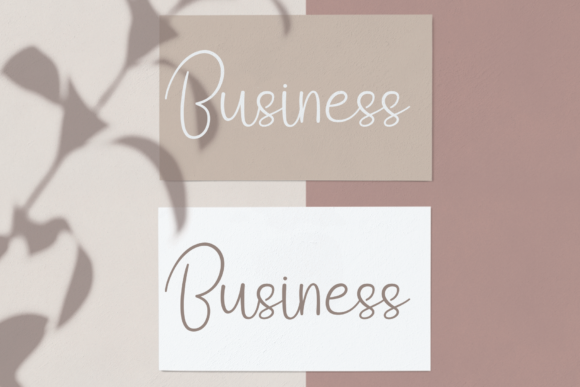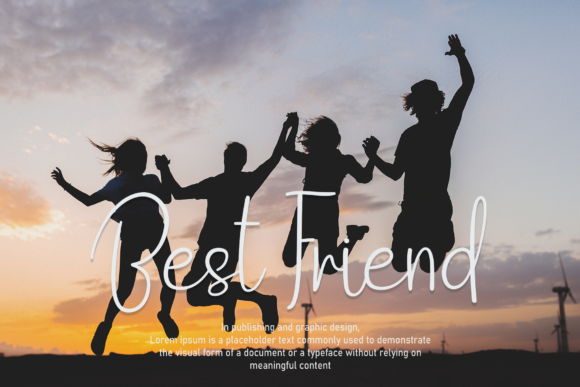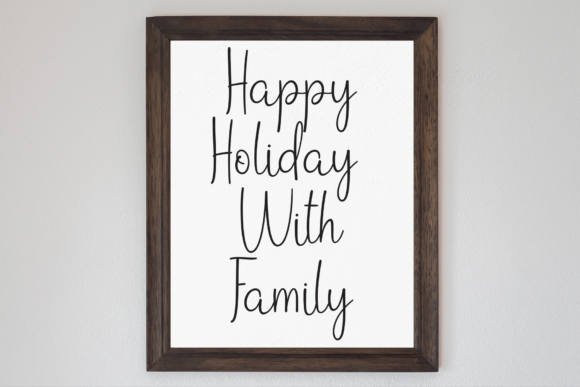
Discover the Elegance of Atlantis Font: Elevate Your Designs with a Delicate Touch
In the realm of typography, few fonts manage to capture the essence of elegance and versatility as effectively as the Atlantis Font. This delicate and clean handwritten font has emerged as a favorite among designers and crafters, offering a wide array of creative possibilities. Whether you’re working on a poster, flyer, or any print material, Atlantis Font promises to add a touch of sophistication and charm to your designs.
The Characteristics of Atlantis Font
Atlantis Font stands out for its unique blend of delicacy and clarity. Its handwritten nature gives it a personal and intimate feel, making it perfect for projects that require a touch of warmth and authenticity. The clean lines and smooth curves of the font ensure that it remains highly legible, even at smaller sizes, which is a crucial factor for designers who need to balance aesthetics with functionality.
One of the key advantages of Atlantis Font is its incredible versatility. Its elegant and understated design makes it suitable for a wide range of applications. Here are a few ideas on how you can use Atlantis Font to elevate your designs:
- Posters: Create eye-catching posters for events, promotions, or informational campaigns that stand out with the sophisticated look of Atlantis Font.
- Flyers: Give your flyers a professional edge with a font that communicates your message clearly and stylishly.
- Print Materials: From brochures and catalogs to business cards and letterheads, Atlantis Font can add a refined touch to any printed material.
- Digital Designs: Don’t limit Atlantis Font to print; its clean lines make it also suitable for digital platforms, including websites, social media graphics, and email newsletters.
Exploring Endless Possibilities
The true power of Atlantis Font lies in its ability to inspire creativity and experimentation. Here are some tips on how to explore its endless possibilities:
- Play with Sizes: Atlantis Font’s legibility at various sizes allows you to experiment with different hierarchies in your designs, making it easy to guide the viewer’s attention.
- Mix and Match: Combine Atlantis Font with other typefaces to create interesting contrasts and add depth to your designs.
- Color It Right: Choose colors that complement the elegance of Atlantis Font. Soft pastels, rich jewel tones, or classic black and white can enhance its beauty.
- Embellish with Graphics: When paired with illustrations, graphics, or textures, Atlantis Font can help create visually compelling compositions.
Why Designers and Crafters Love Atlantis Font
Atlantis Font has quickly become a go-to choice for designers and crafters for several reasons:
- Ease of Use: Its clean and clear design makes it easy to work with, even for those who are new to design.
- Professional Look: Despite its ease of use, Atlantis Font gives designs a professional and polished appearance.
- Emotional Connection: The handwritten nature of the font can create an emotional connection with the audience, making designs more relatable and engaging.
Atlantis Font is more than just a typeface; it’s a tool for creativity and expression. Its delicate and clean handwritten design makes it an excellent choice for a wide range of projects, from posters and flyers to digital designs. By incorporating Atlantis Font into your designs, you’re not just choosing a font; you’re embracing a world of elegance, versatility, and endless creative possibilities. So, dive in, explore its potential, and let Atlantis Font be the key to unlocking stunning designs that capture the imagination.